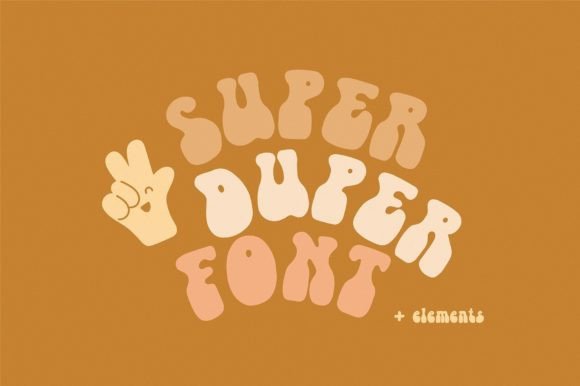
Introducing Super Duper Font, the captivating display font that embodies the essence of joy and laughter. Crafted by the talented Julia_Volkova, this hand-drawn masterpiece exudes a youthful boho vibe, making it the perfect choice for adding a touch of whimsy to your creative projects.
Immerse yourself in the playful spirit of Super Duper Font, a visual symphony that evokes the feeling of carefree summer days and endless laughter. Its vibrant energy will transform your designs into eye-catching expressions that resonate with your audience.
Step into a world of endless possibilities with Super Duper Font. Whether you're creating posters that burst with color, magazine covers that demand attention, or logos that leave a lasting impression, this font will elevate your work to new heights. Unleash your imagination and let the playful spirit of Super Duper Font guide you towards extraordinary design.
Don't settle for ordinary fonts that blend into the background. Embrace the power of Super Duper Font and watch as your designs come alive with an infectious energy that captivates and inspires. Its versatility knows no bounds, making it the perfect companion for wall art, branding, and any project that calls for a touch of playful sophistication.
With Super Duper Font by your side, you'll never run out of creative inspiration. Its unique character will add a spark of joy and laughter to every project, leaving your audience with a lasting impression. Embrace the magic of Super Duper Font and elevate your designs to extraordinary heights.